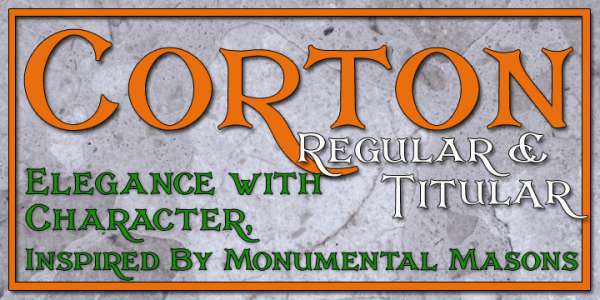
Corton
Corton come from the conventional calligraphy on a gravestone from an old English village. This may sound really bizarre. But one look at this amazing text and you would fall for the magnificently lively air that surrounds it. The typeface is armed with idiosyncratic lively serifs and pleasantly swashed downstrokes. Corton is tagged along with eight … Read more